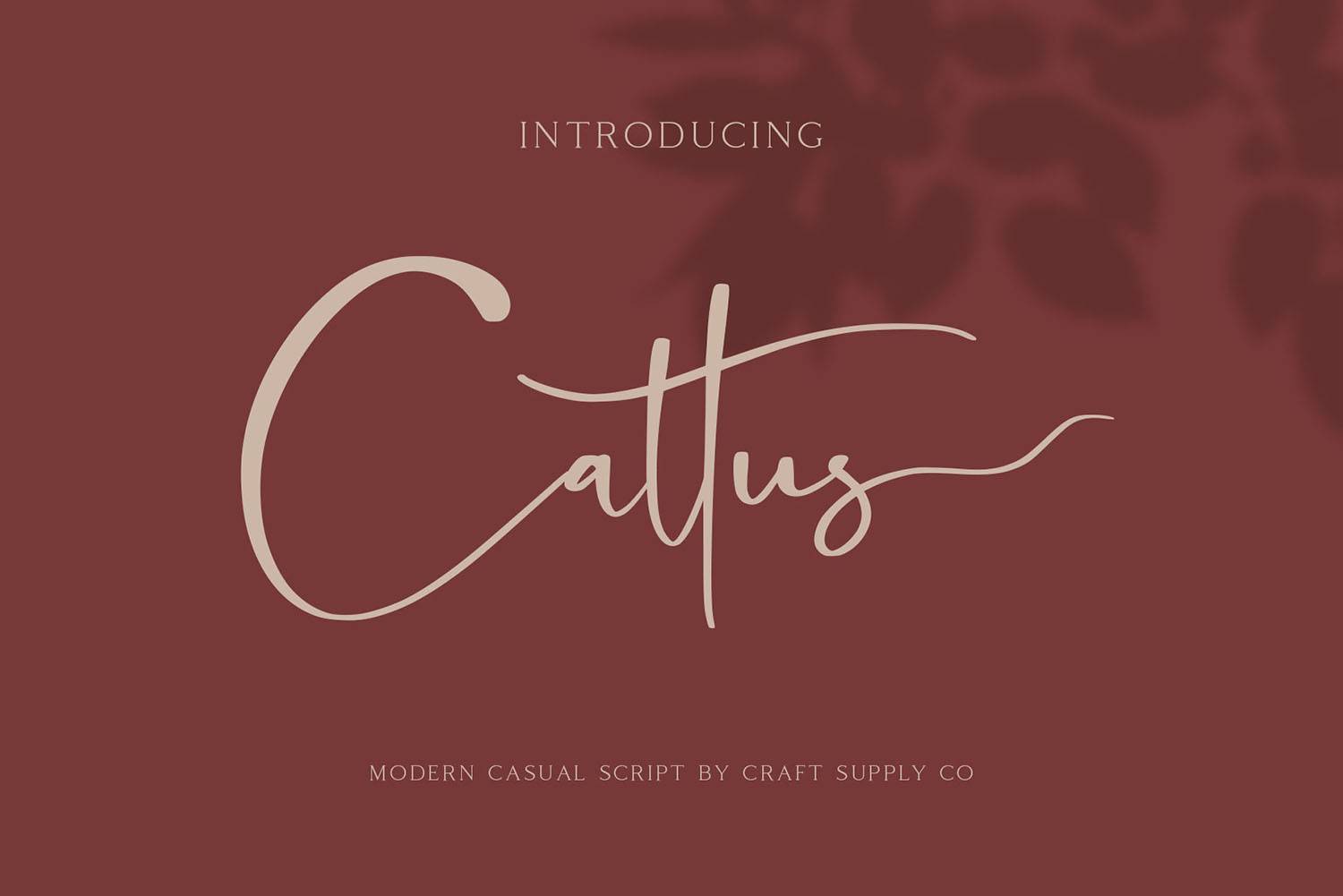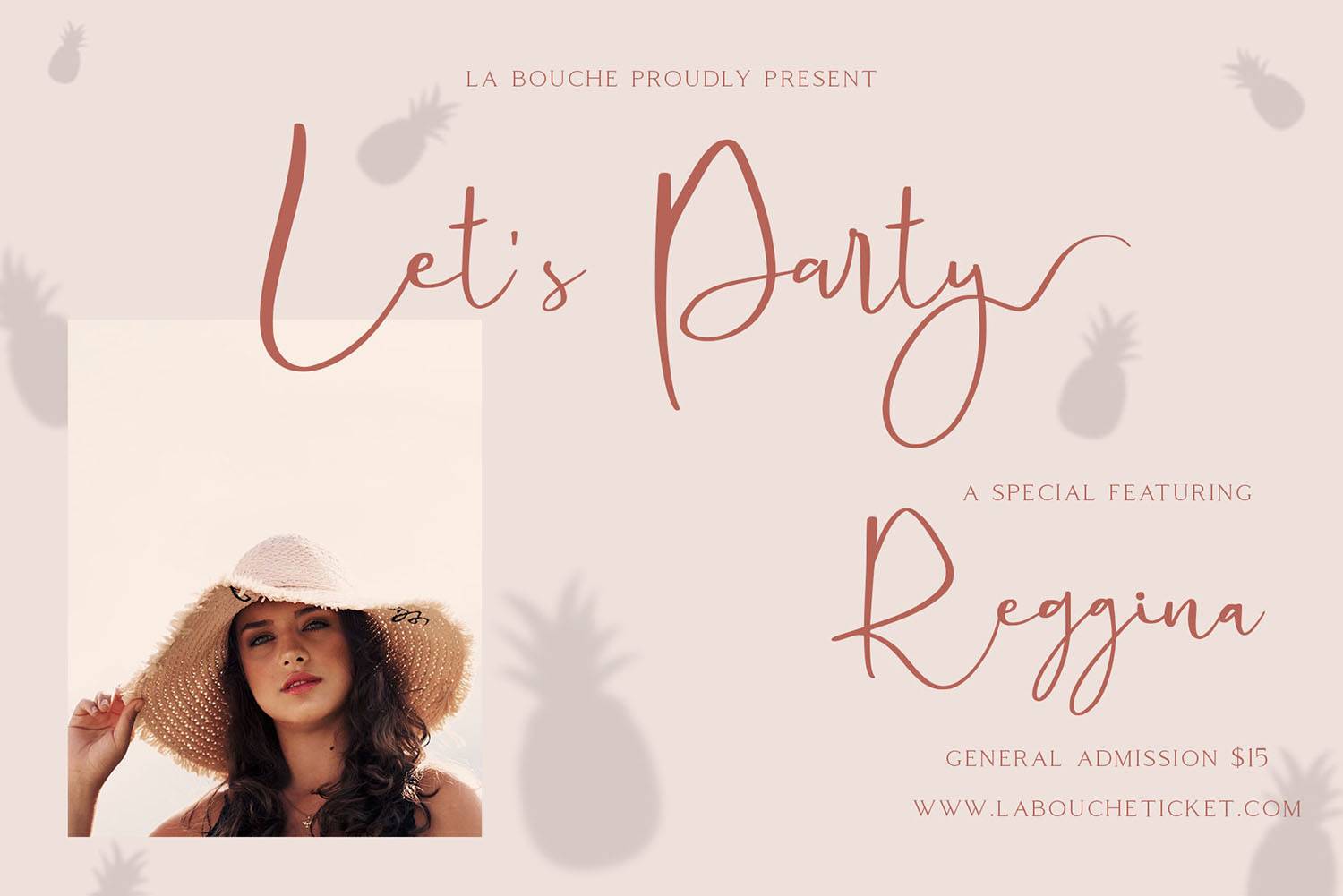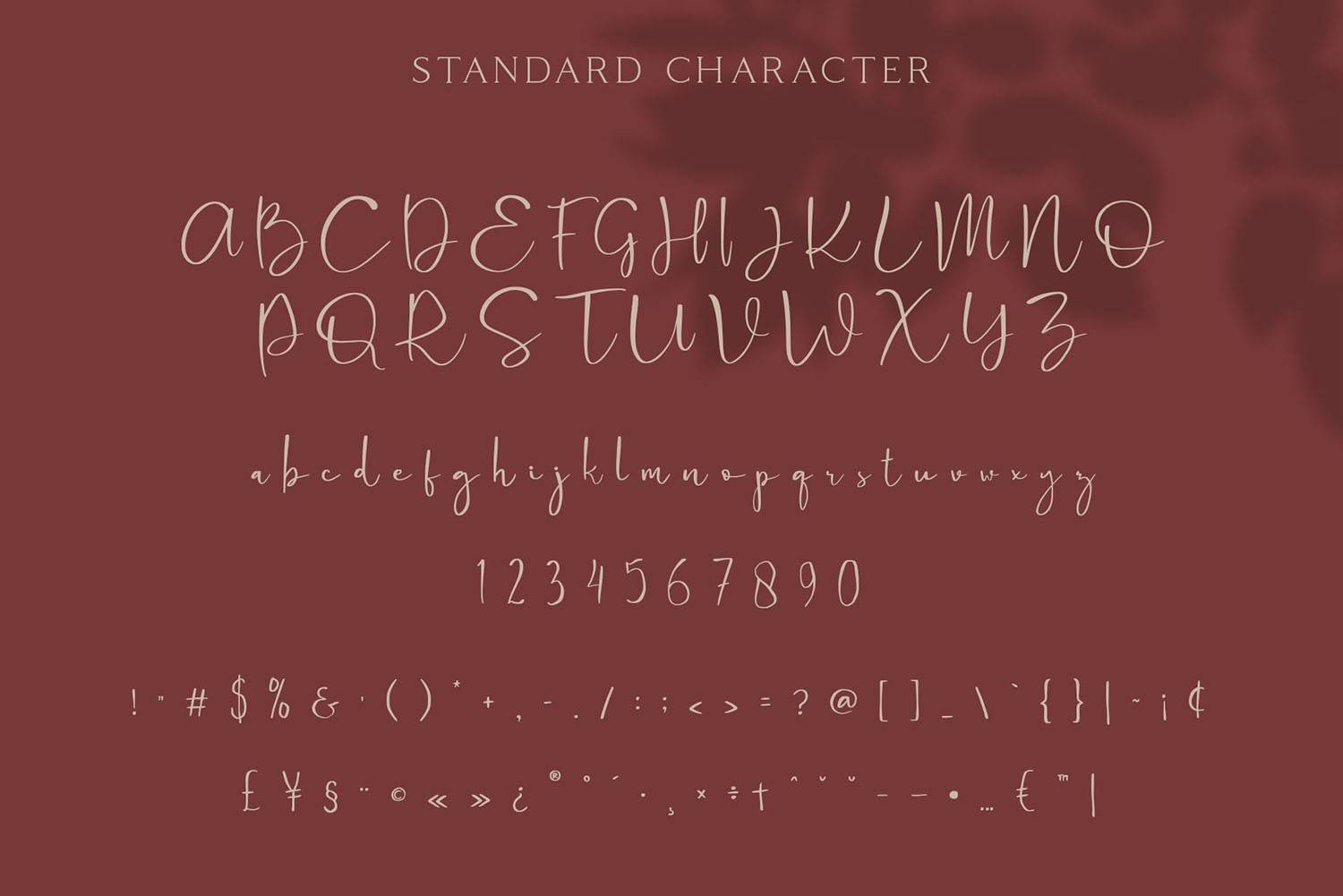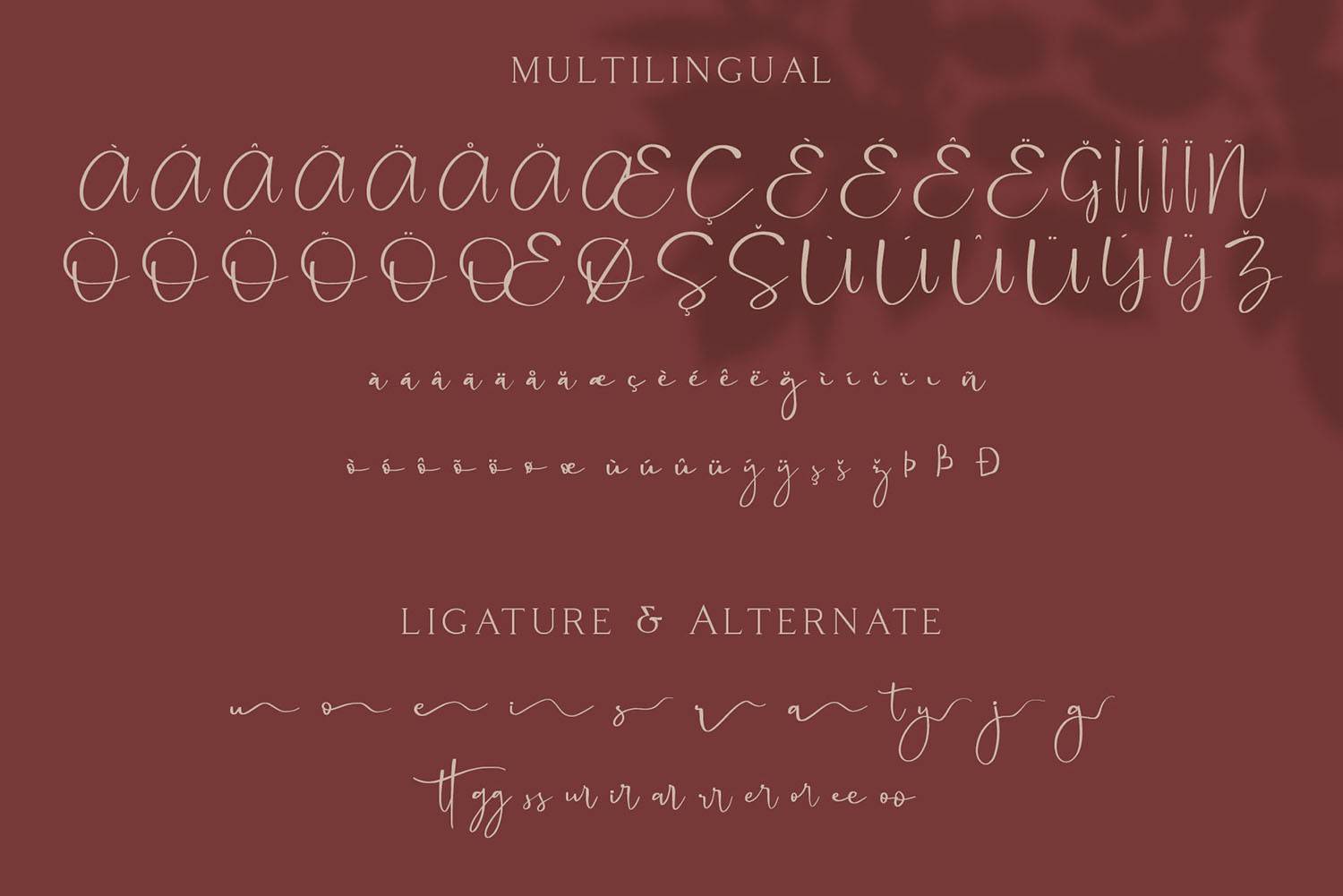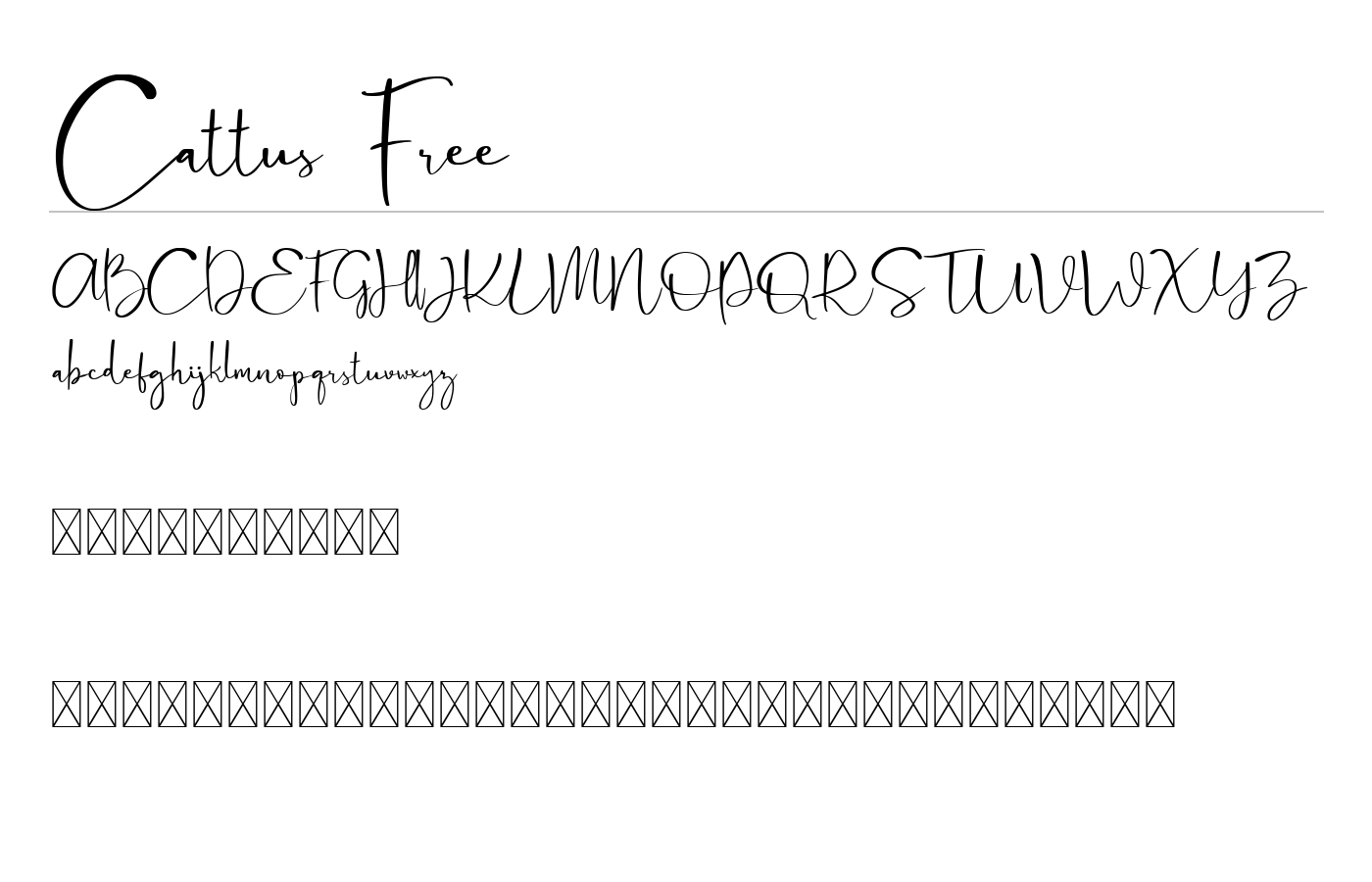
Cattus is a delicate, handwritten script font with a light and airy feel, featuring slender strokes and playful, flowing letterforms. Its casual elegance and organic character make it ideal for invitations, branding, and creative projects that seek a personal, warm touch. This font works beautifully in designs that want to convey friendliness and charm without being overly formal.
Cattus Font
About Cattus Font